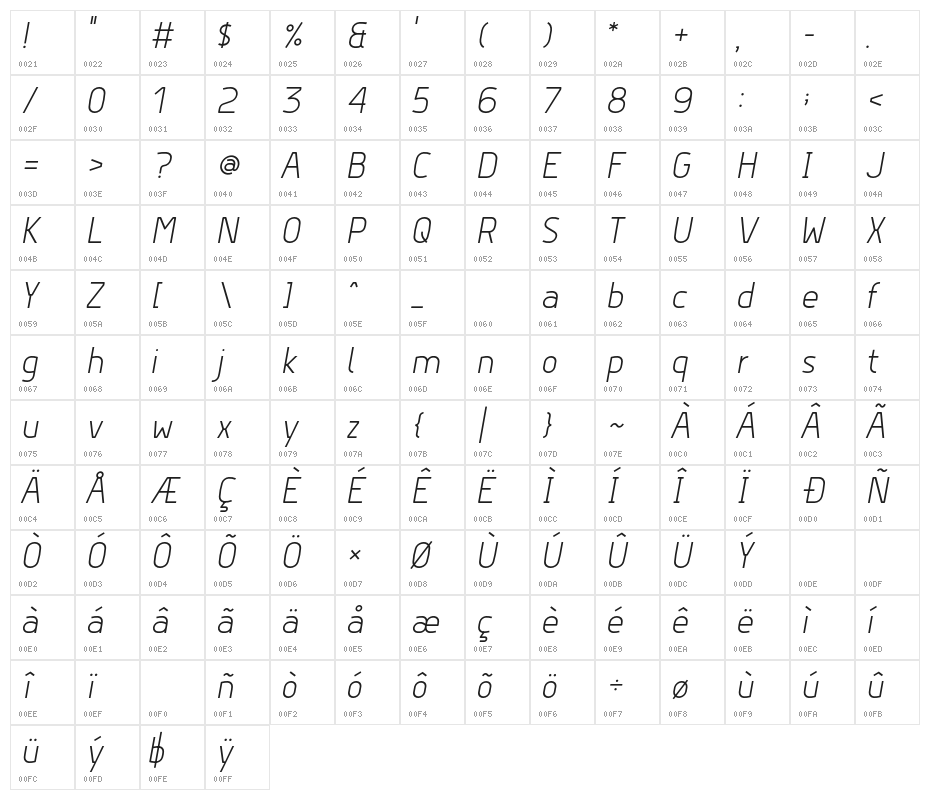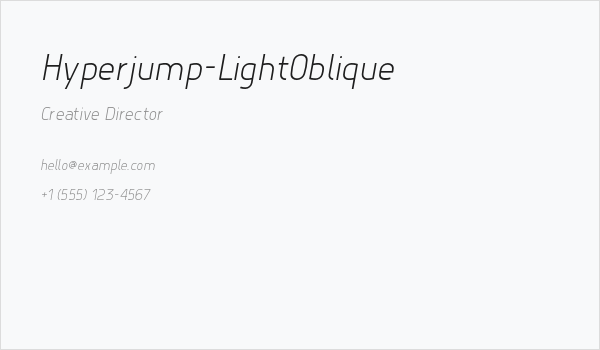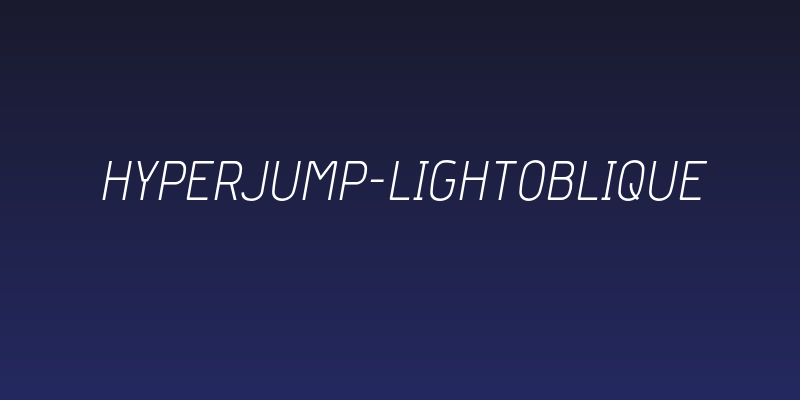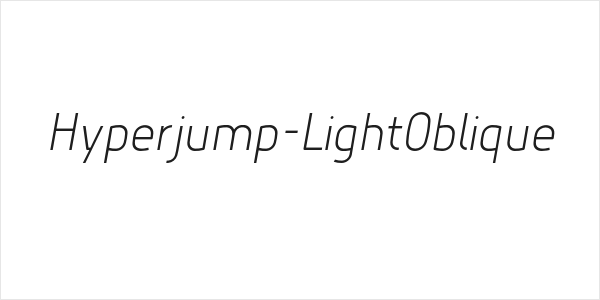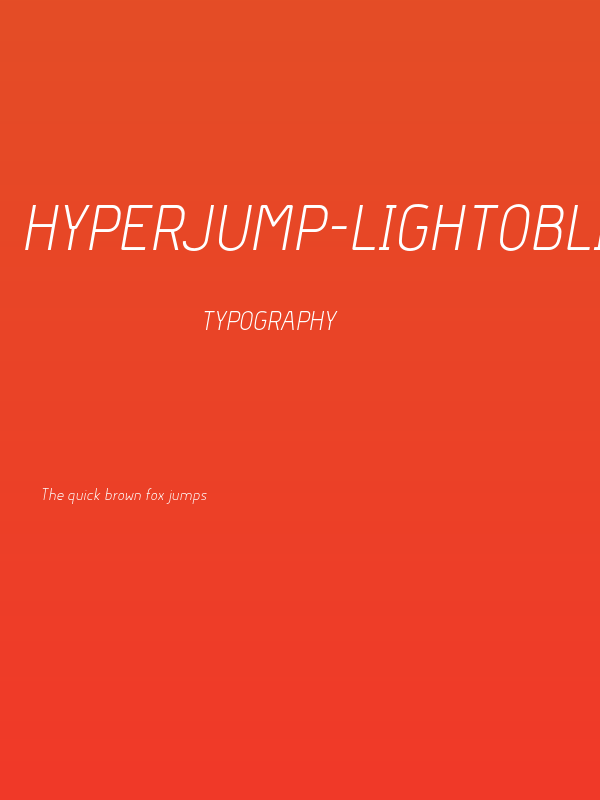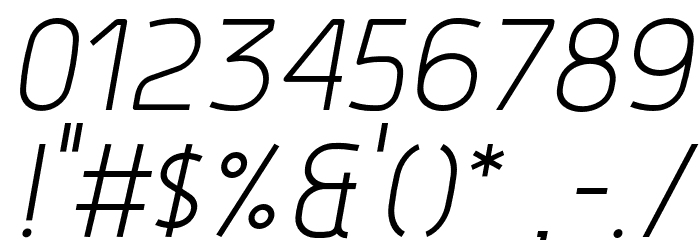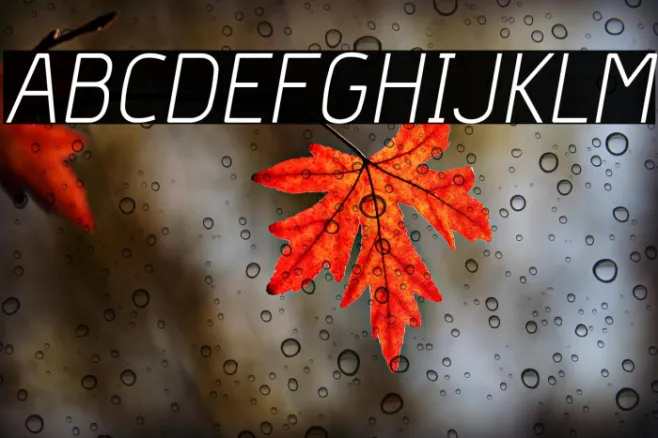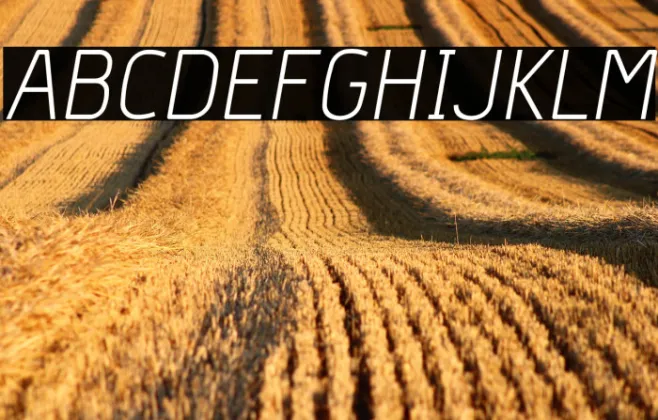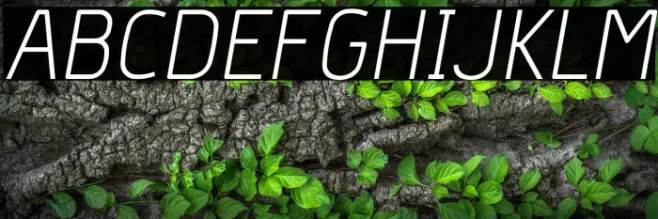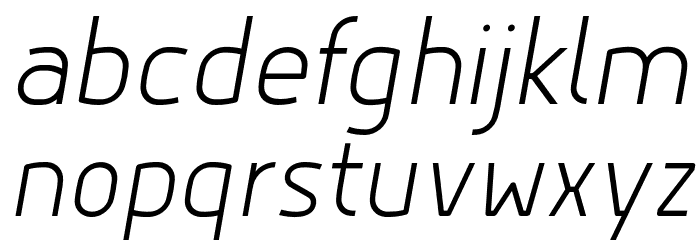
Hyperjump-LightOblique Font
Hyperjump-LightOblique Description
This font features a sleek and modern design with a light oblique style, giving it a dynamic and forward-moving appearance. The characters are slightly slanted, adding a sense of motion and elegance. It maintains a clean and minimalistic aesthetic, making it suitable for contemporary design projects. The font has a consistent stroke width, contributing to its readability and versatility. Its geometric shapes and smooth curves provide a professional and polished look, ideal for digital and print media.